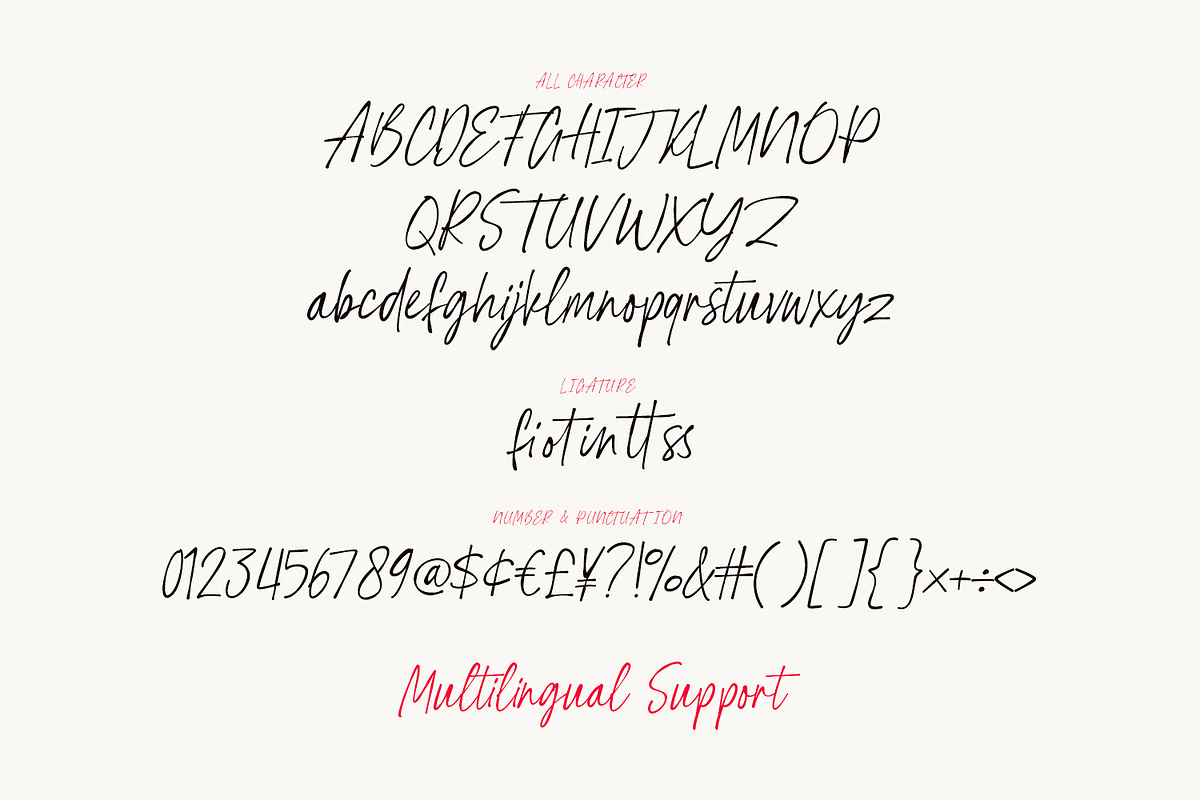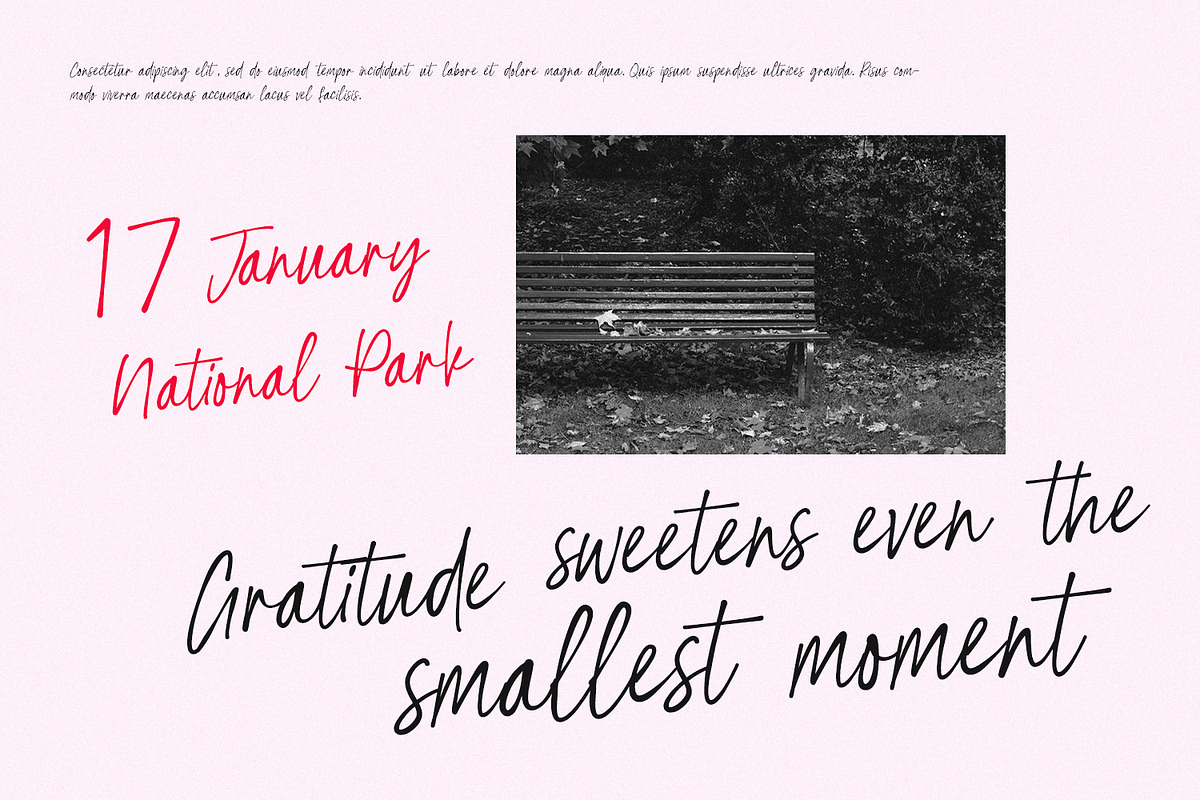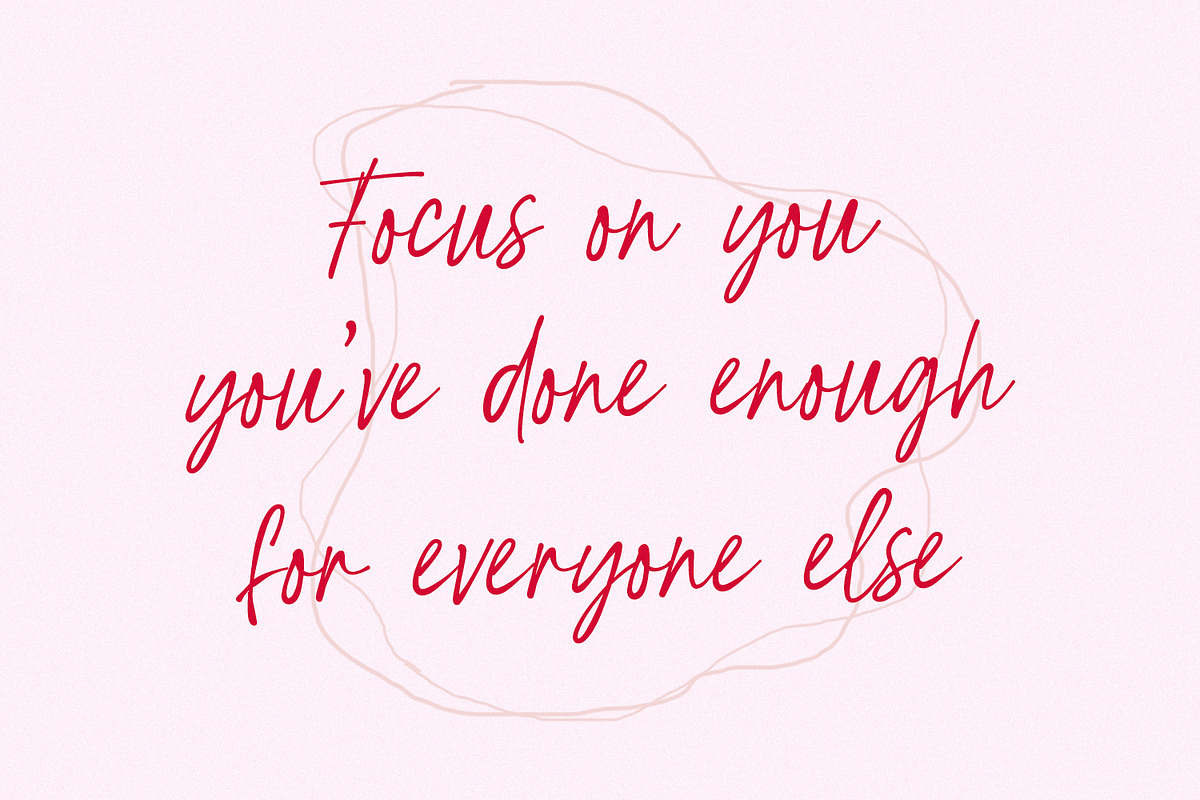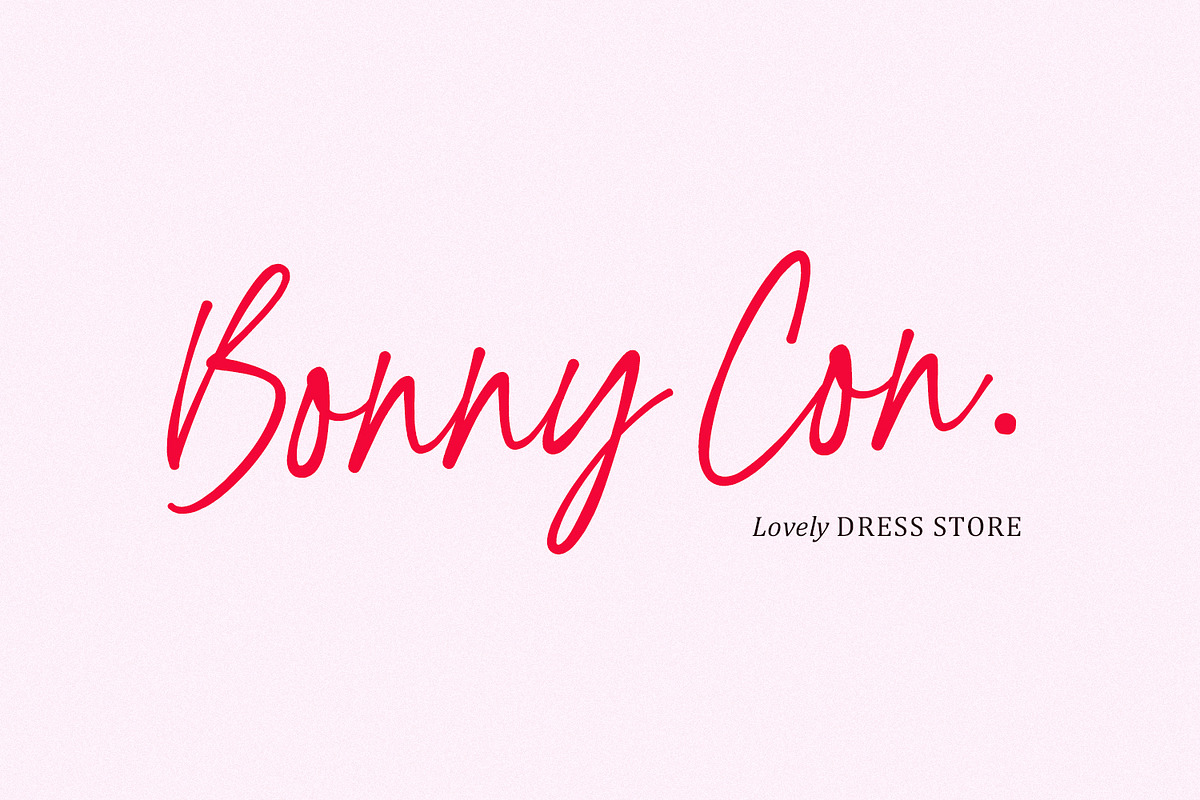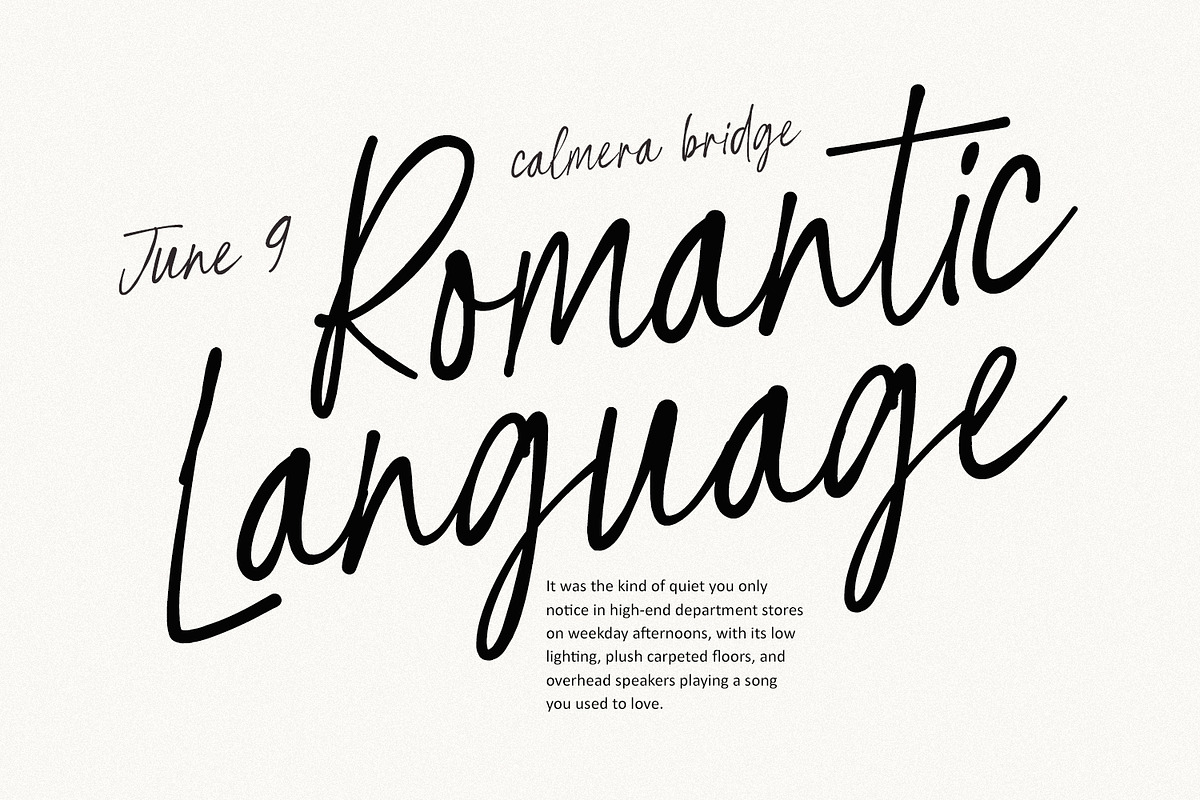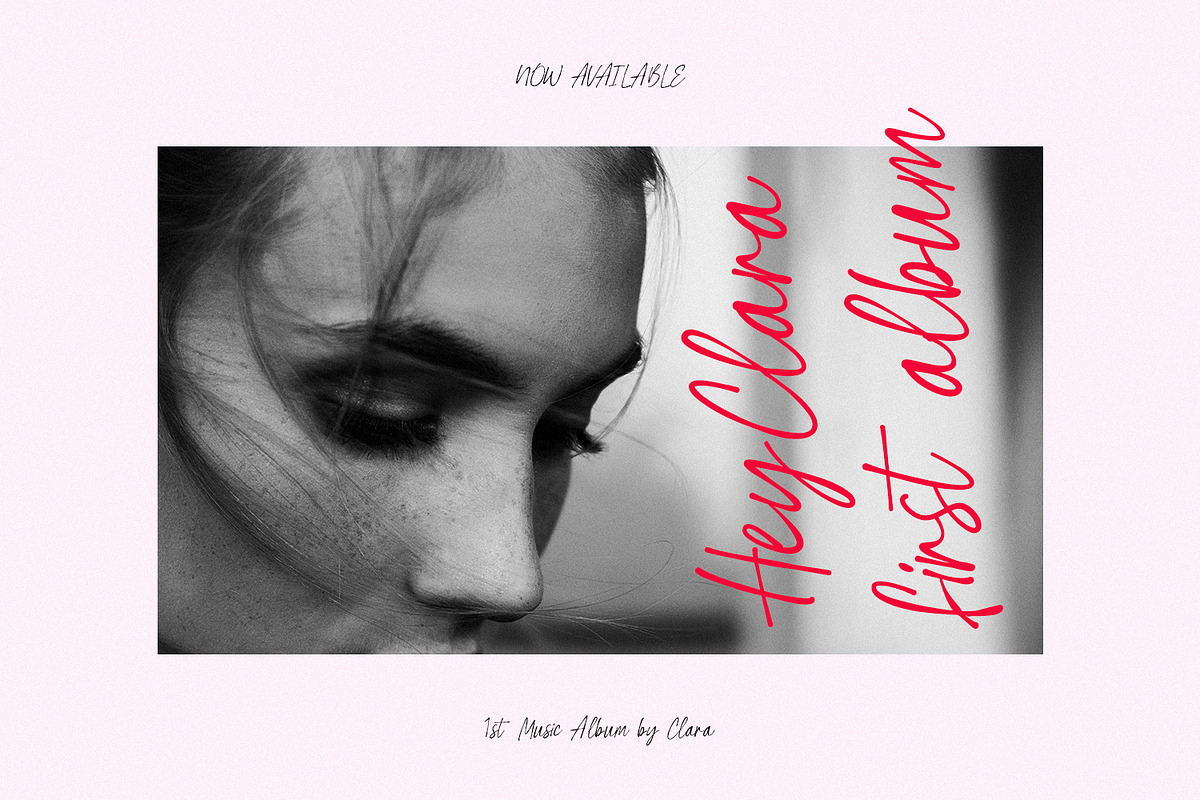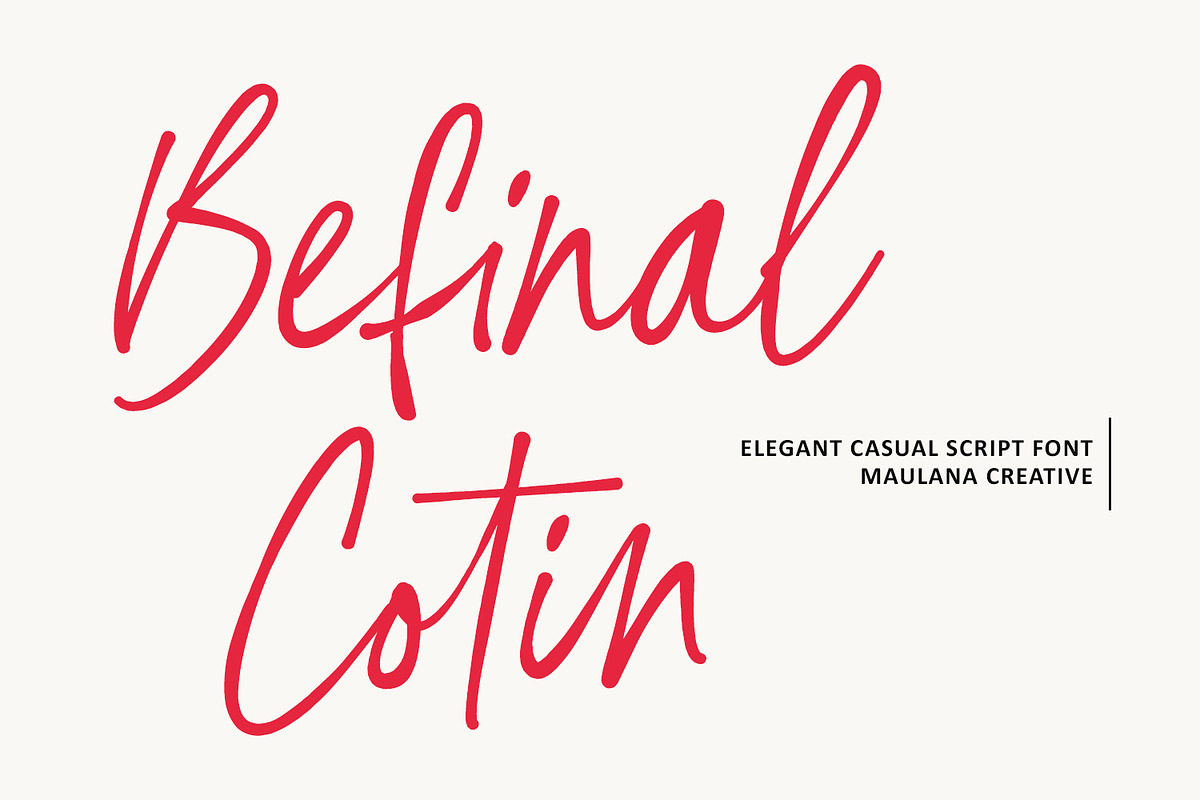
Befinal Cotin Elegant Casual Script
Befinal Cotin is a sophisticated yet relaxed script font that perfectly captures the essence of modern handwriting. Created by Maulana Creative, this typeface features fluid, elongated strokes and a natural flow that exudes a sense of effortless elegance. Its casual signature style makes it an ideal choice for high end branding, fashion logos, romantic wedding invitations, and expressive social media quotes. With its comprehensive character set, including ligatures and multilingual support, Befinal Cotin offers a versatile and organic aesthetic for any creative project, human touch.
- Full character set (Uppercase & Lowercase)
- Numbers, Punctuation, and Symbols
- Ligatures for a natural handwriting flow